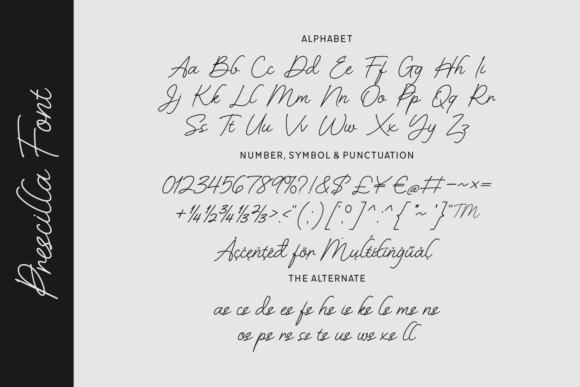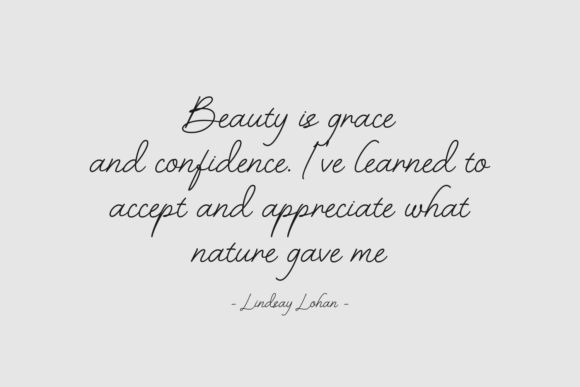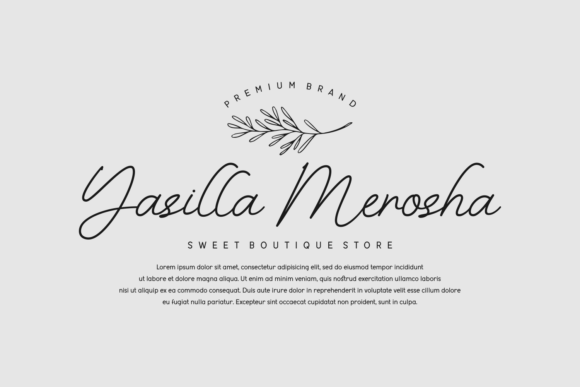
Introduction to Prescilla Font
Do you remember the moment when you finally found the perfect font for your design project? It’s like finding that missing piece of a puzzle – everything falls into place, and your creativity skyrockets. For designers, discovering the ideal font can be a game-changer, elevating their work from good to great. And that’s exactly what the Prescilla Font offers – a timeless, elegant, and sophisticated design that will take your creative projects to the next level.
As a versatile design resource, the Prescilla Font is perfect for branding, wedding invitations, logos, and modern design projects. Its delicate strokes and smooth curves exude sophistication, making it a valuable addition to any designer’s toolkit. Whether you’re working on a high-quality project or simply need a free download for a personal design, the Prescilla Font is an excellent choice.
Key Features of Prescilla Font
- High-quality design resource ideal for creative projects, including logos, branding, and more
- Unique, elegant design with a transparent background, making it versatile for any design application
- Designed with precision and care, resulting in a high-resolution font perfect for large-scale designs
Honest Review: Prescilla Font
As a designer, I’m always on the lookout for high-quality design resources to elevate my creative projects. The Prescilla Font has caught my attention lately, and I’m excited to share my honest review.
What works well: ✨ The Prescilla Font has a beautiful, elegant script that’s perfect for adding a touch of sophistication to any design. It’s also available for free download, which is a major plus. The font is highly customizable, allowing me to adjust the style to fit my design needs. The transparent background option is also a great feature, making it easy to layer the font over other design elements.
What’s not so great: ⚠️ While the Prescilla Font is high quality, it’s not suitable for all design projects. The script style may not be the best choice for bold or playful designs. Additionally, the font may not be as versatile as some other script fonts on the market.
Overall impression: The Prescilla Font is a solid choice for designers looking for a high-quality, elegant script font. While it may have some limitations, its beauty and customizability make it a valuable addition to any design resource collection.
- Elegant script style
Tips for Getting the Most Out of Prescilla Font
For the best results, use Prescilla Font with a transparent background to create a seamless design. You can also use the font in combination with other design elements to create a unique look. Experiment with different font sizes and colors to find the perfect combination for your project.
Prescilla Font is ideal for a variety of creative projects, including invitations, business cards, and brochures. It’s also great for use in social media graphics, presentations, and documents. With its elegant and sophisticated design, Prescilla Font is a valuable resource for any designer or creative professional.